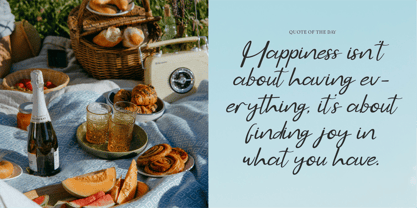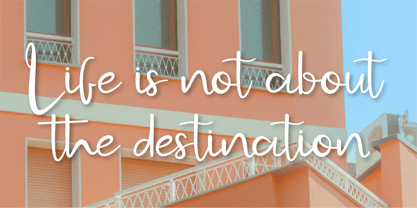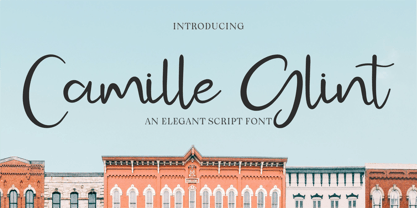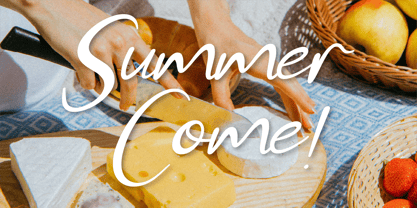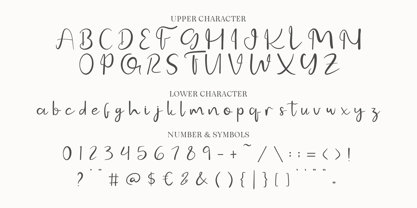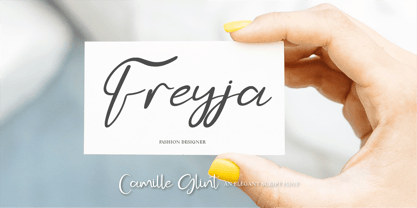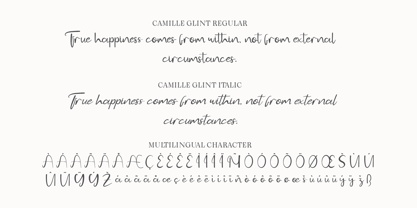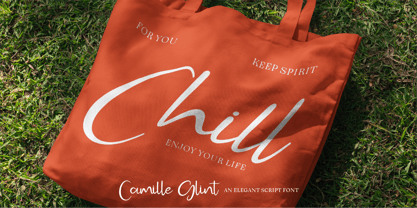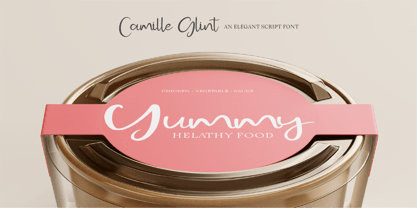
CF Camille Glint
by Indotype
The CF Camille Glint Font Family was designed by Gilang Mei Nugraha, Frederik Aristaputra and published by Indotype. CF Camille Glint contains 2 styles and family package options.
Camille Glint is a sophisticated and stylish script font designed to add a touch of refinement to your creations. Featuring clean curves and a contemporary aesthetic, it seamlessly blends modernity with a hint of playfulness. Camille Glint is ideal for fashion branding, editorial designs, stylish logos, personal stationery, and social media graphics. Its distinctive strokes and elegant flow make it a standout choice for projects that demand both beauty and professionalism.
- Standard Character A-Z, a-z, 0-9, Punctuation & symbols
- Regular and Italic